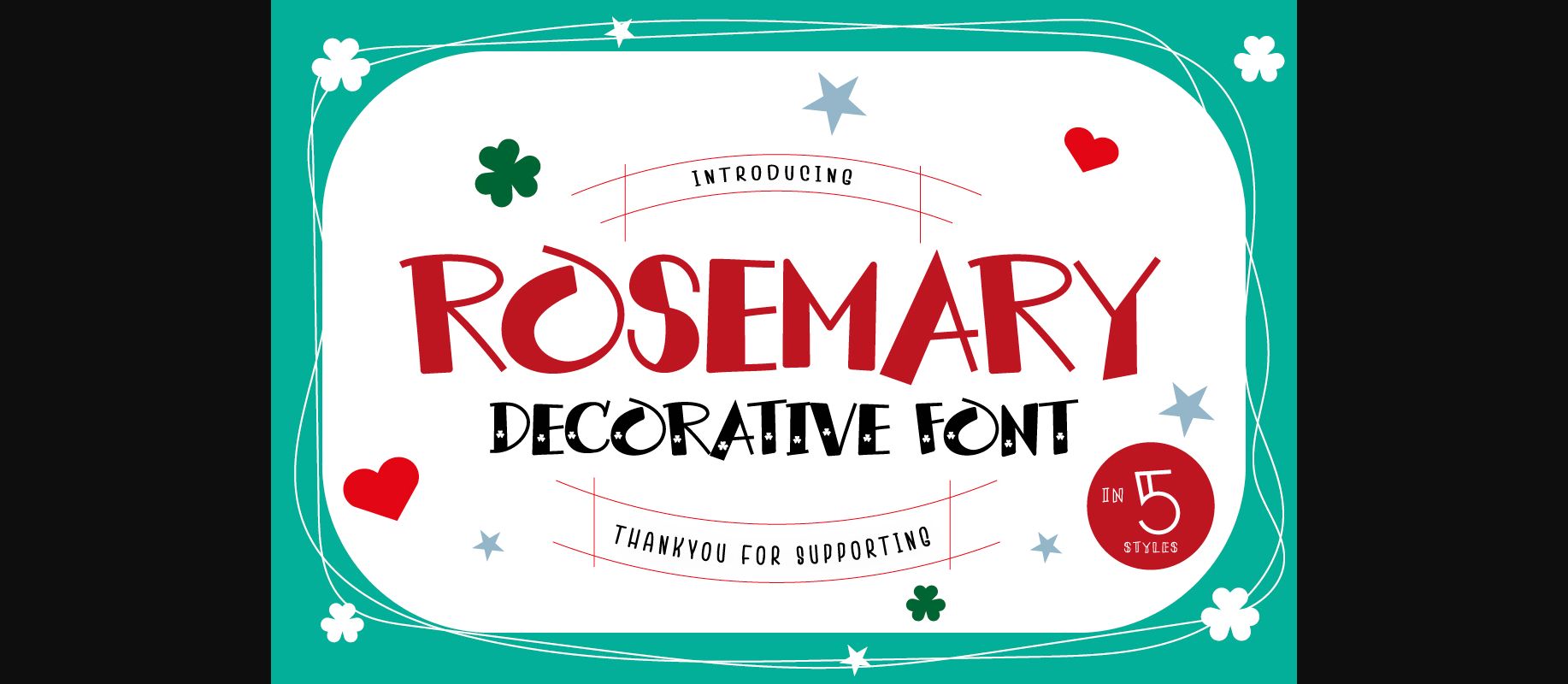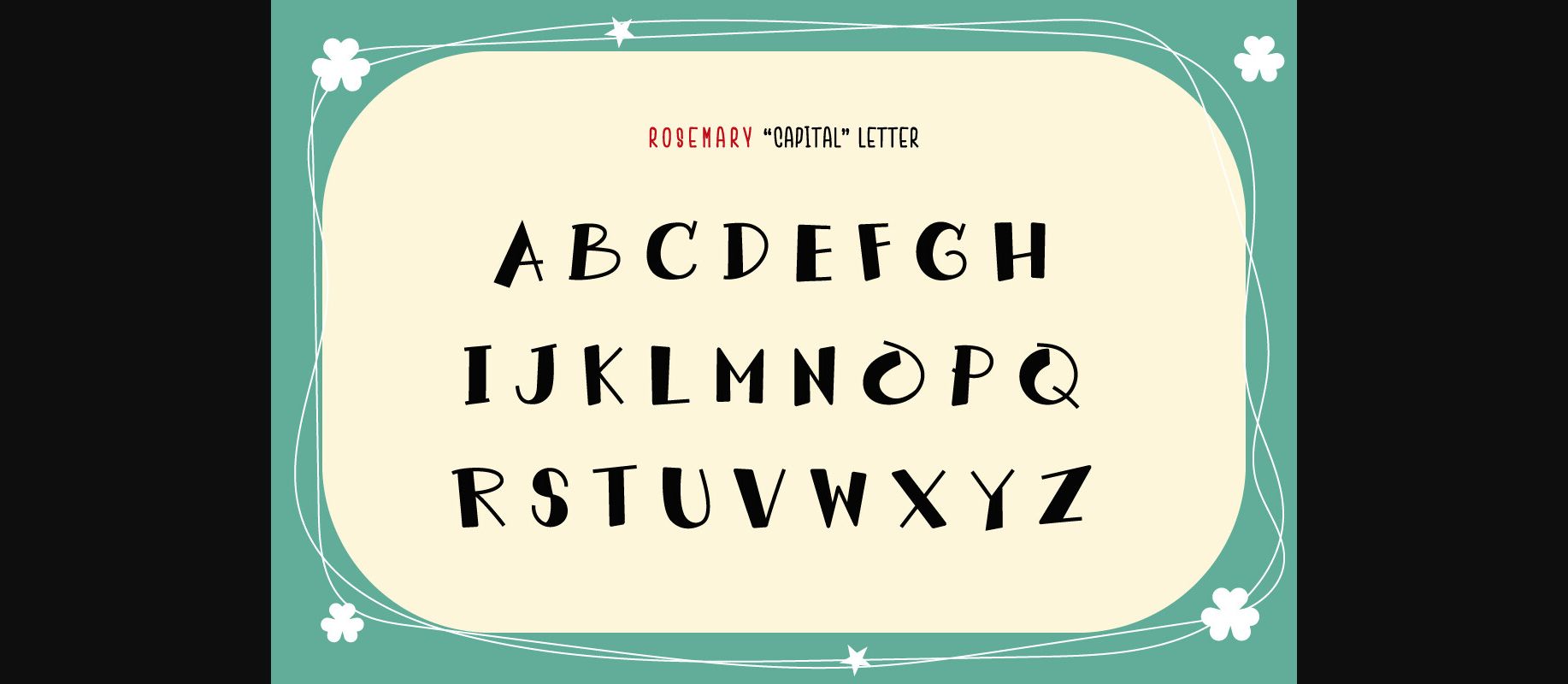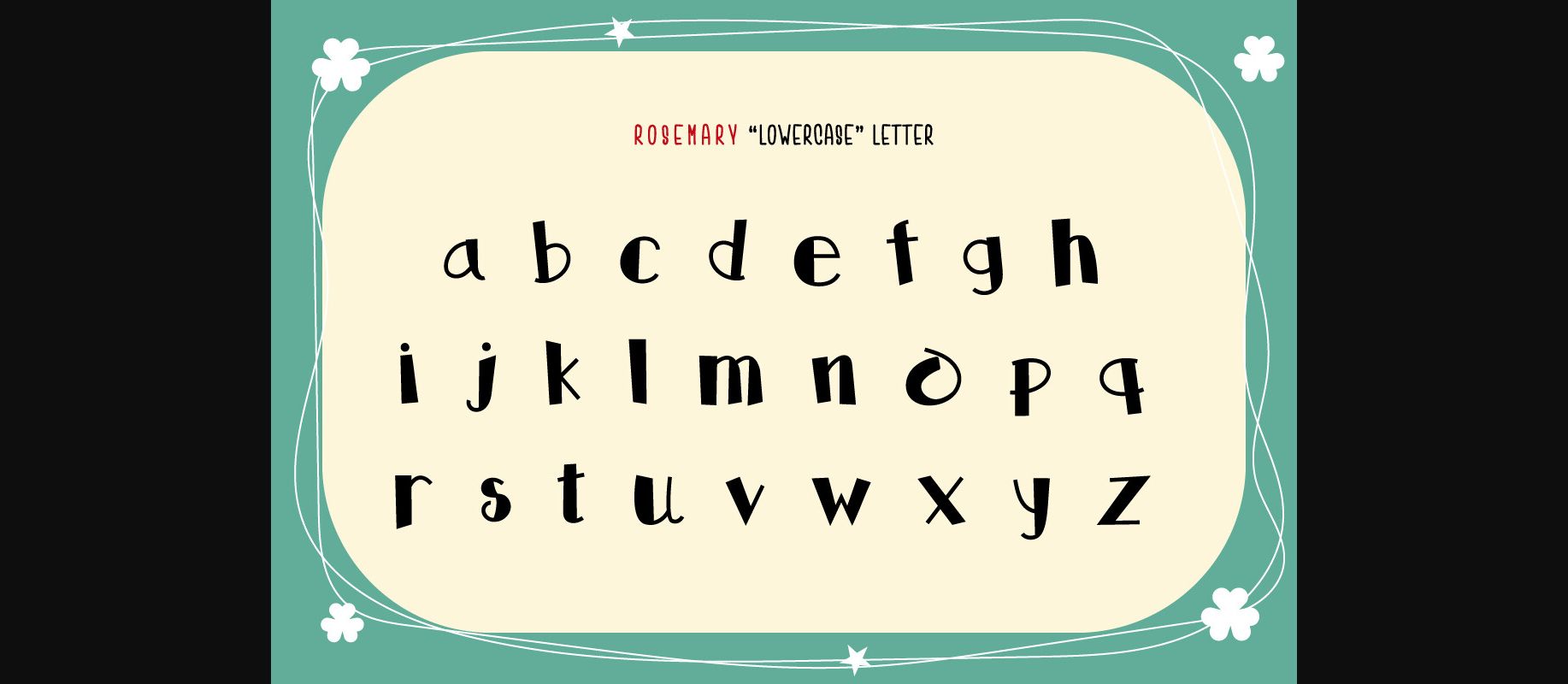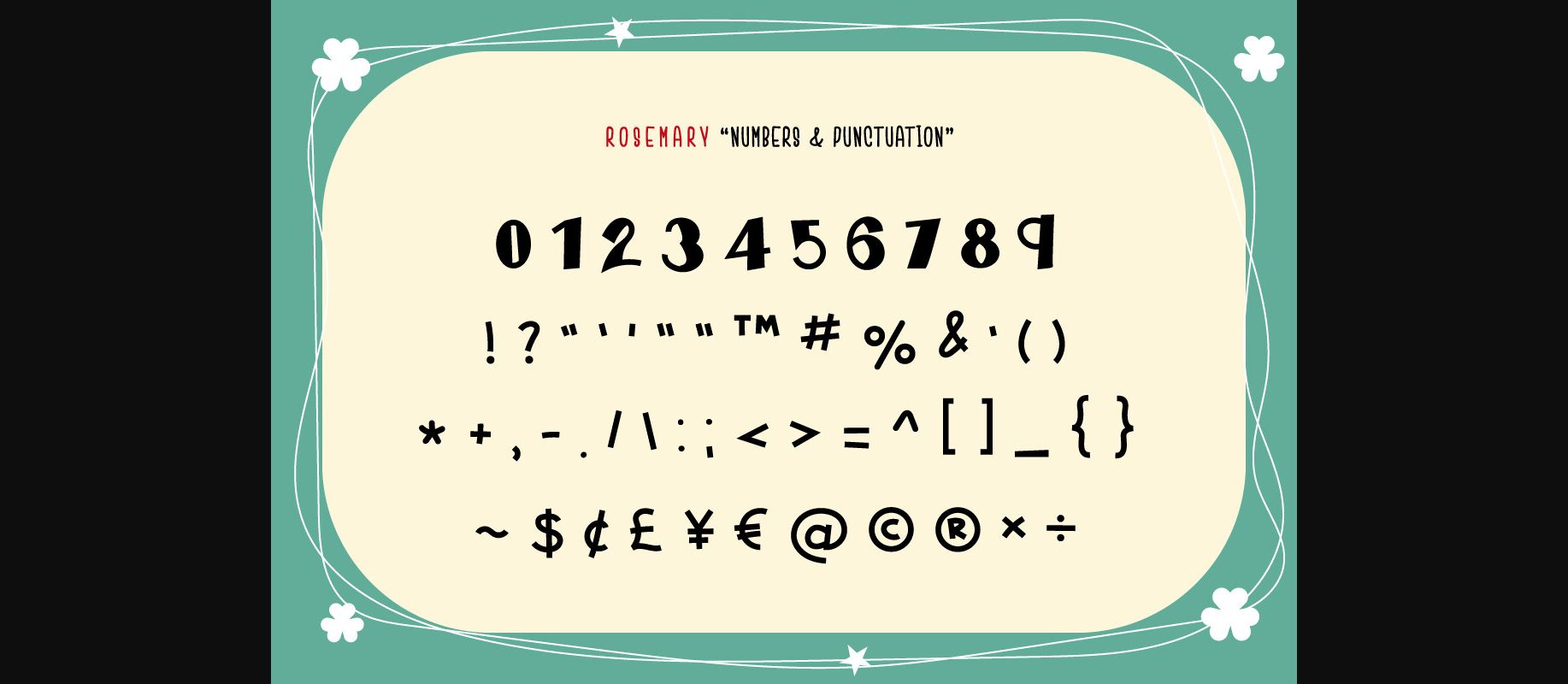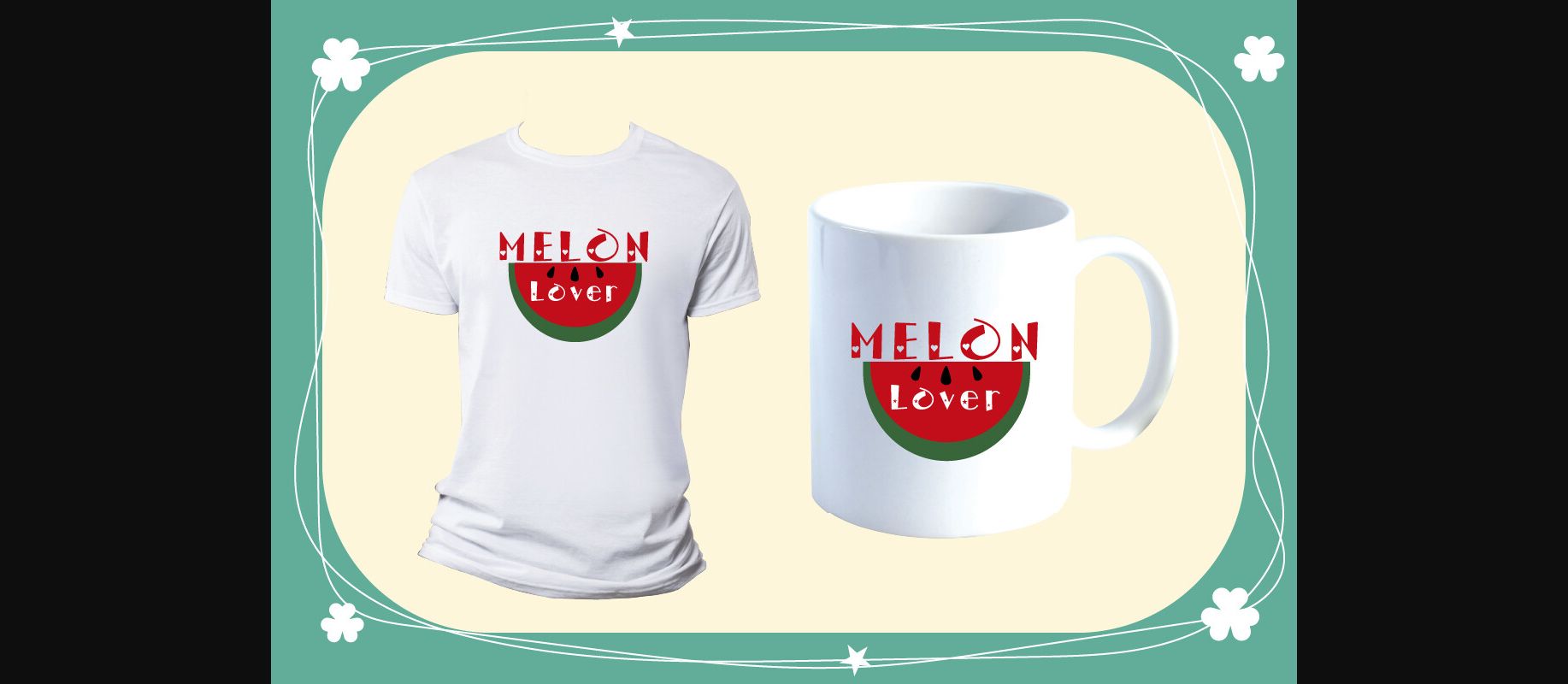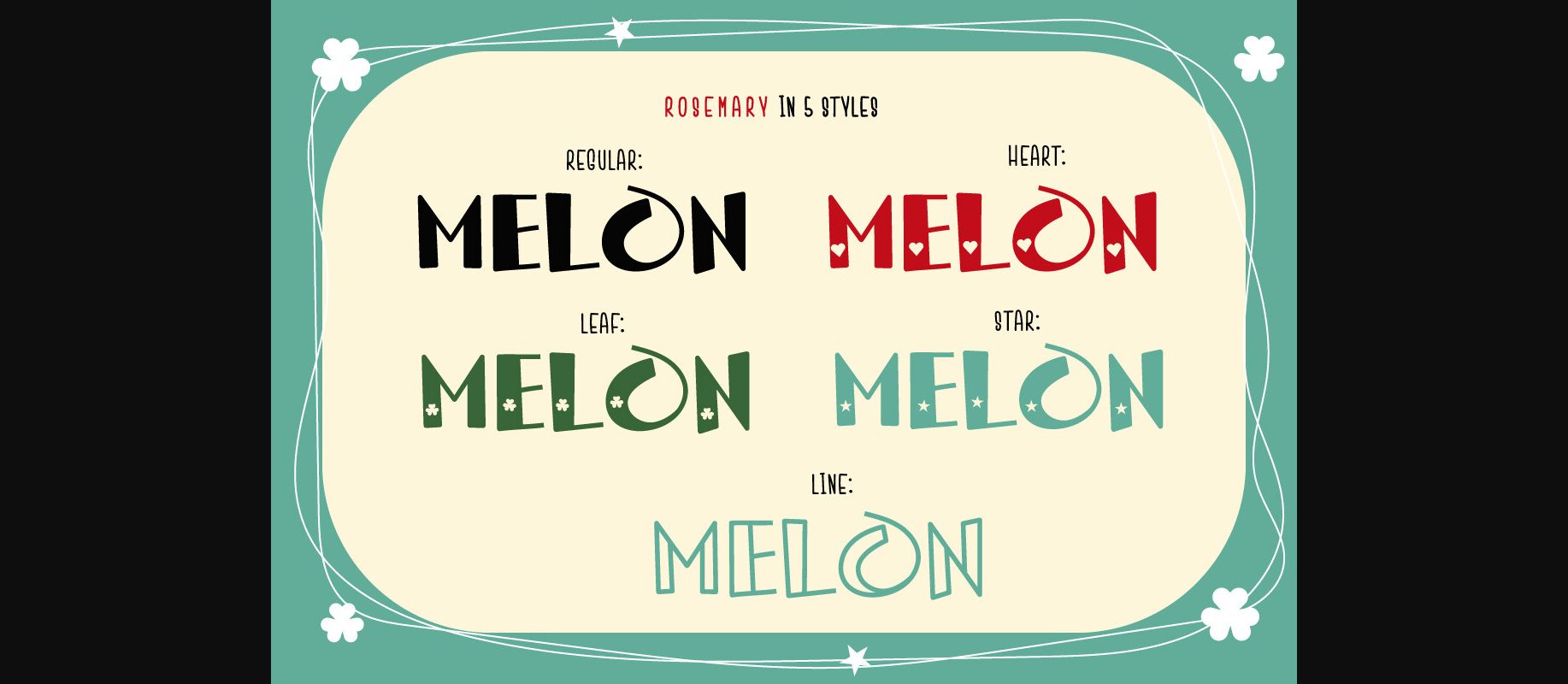
Rosemary Font
About Rosemary Font
Introducing Rosemary, a captivating fusion of charm and wit embodied in a decorative font. Diverse and versatile, Rosemary’s five distinct styles – regular, line, star, leaf, and heart – gracefully merge to create dynamic narratives in typography. Its charisma has a transformative quality, lending a delightful touch to your creations while broadening your design horizons. With Rosemary, express your creativity in a vast array of applications, from high-impact banners, enticing content, and customized mugs, to unique cards, chic shirts, elegant stationery, and engaging social media posts. Drawing on its engaging and fun elements, Rosemary embodies the perfect blend of style and function to help transform your designs into works of art.